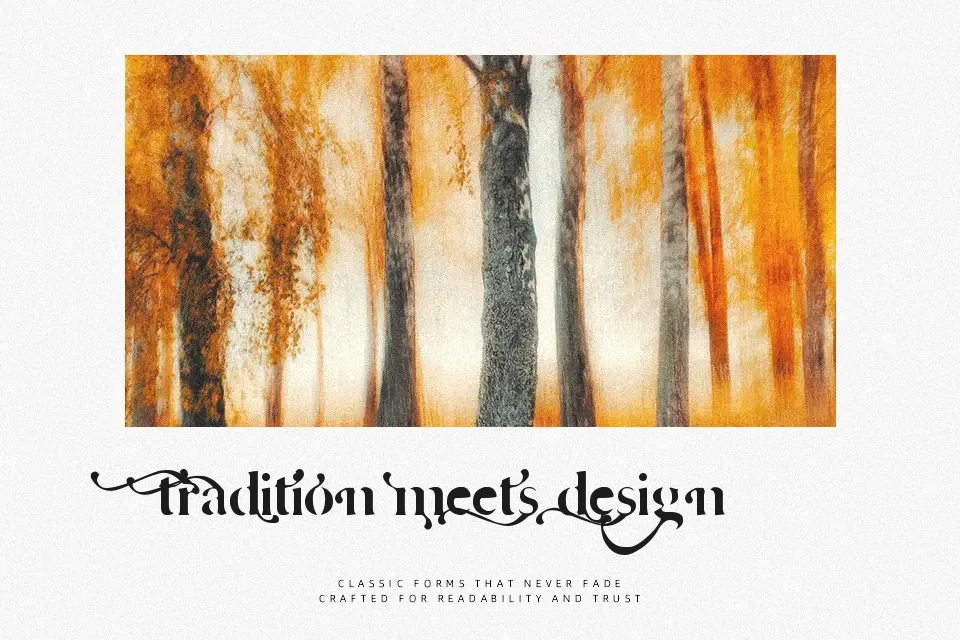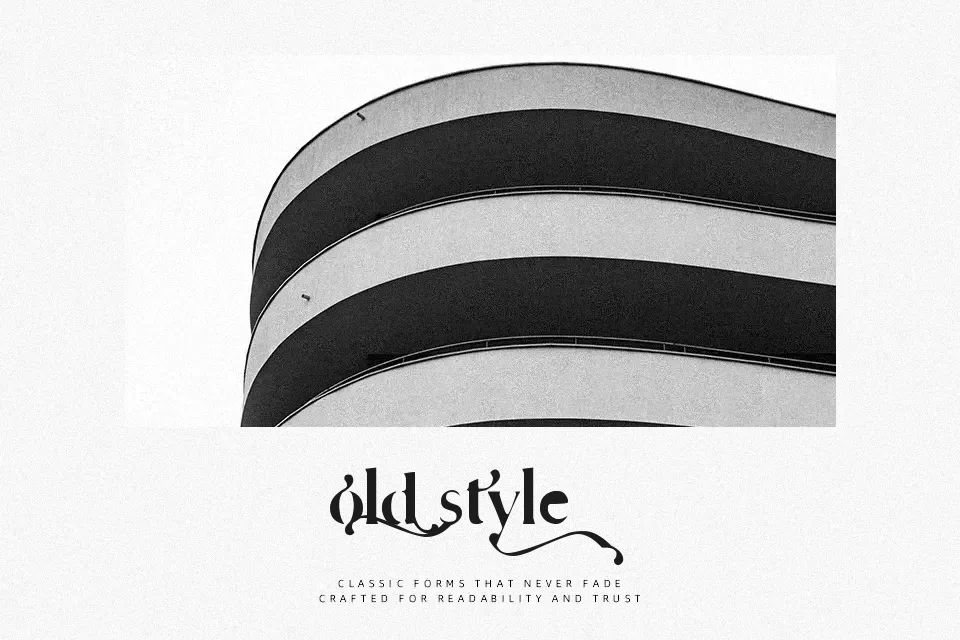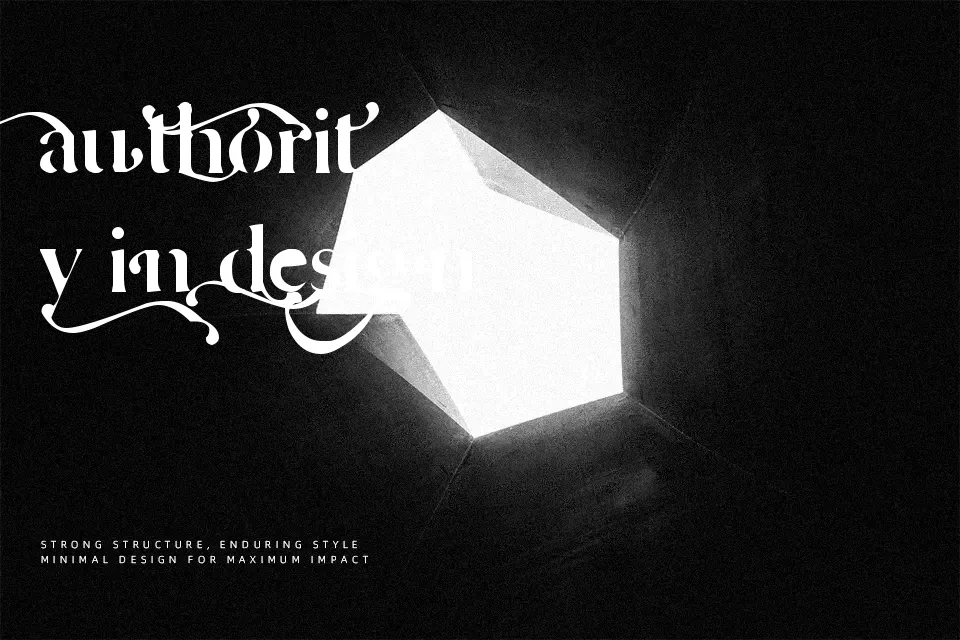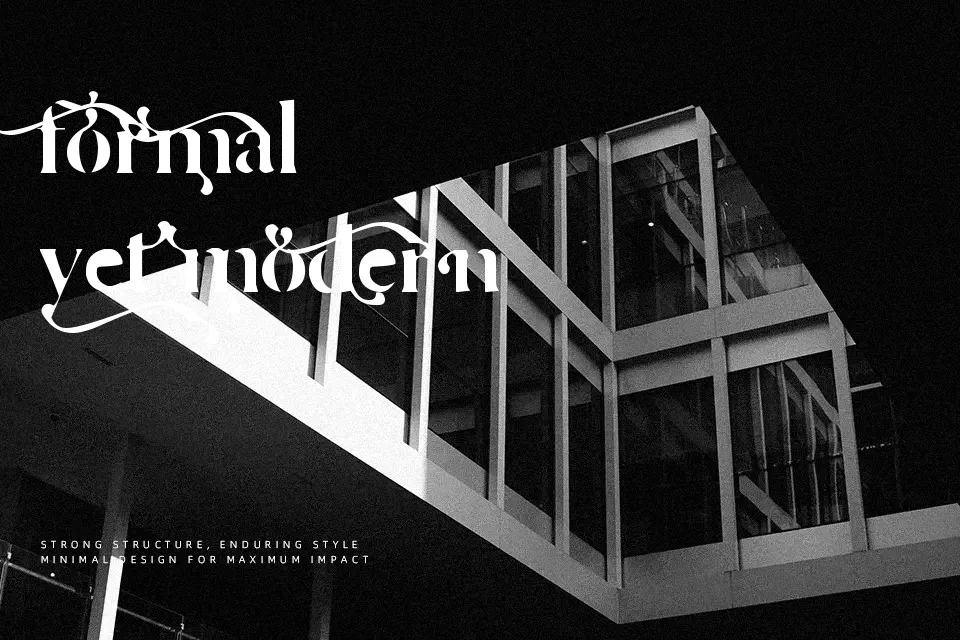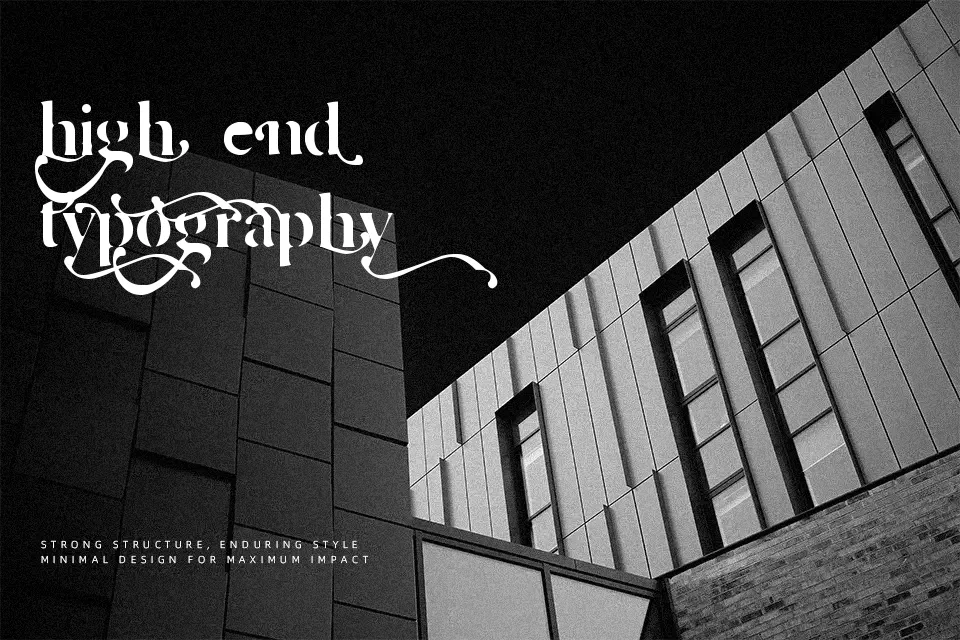
Cafe Lounge 19 Font
Designed by The Original 19
Cafe Lounge 19 Font mixes serif structure with playful swashes and floral alternates, giving each letter a slightly irregular, hand-drawn edge rather than a sterile vector look. Strokes lean toward medium weight with generous curves and ornamental details, so it tends to draw the eye more than a neutral text face. It suits projects where you want a vintage café or lounge atmosphere—think drink menus, patisserie boxes, poster headlines, or small boutique branding rather than dense paragraphs. On the other hand, its decorative forms and variable spacing make it less convincing for body text, minimalist tech brands, or highly formal corporate communications.
retro cafe or restaurant menus and signage
boutique branding and packaging with a vintage flair
poster or flyer headlines that need an ornate accent
social media graphics for lifestyle or food content
long paragraphs or small-size body copy
strictly minimal or tech-oriented interfaces
formal corporate reports or documentation
highly legible signage viewed from long distance